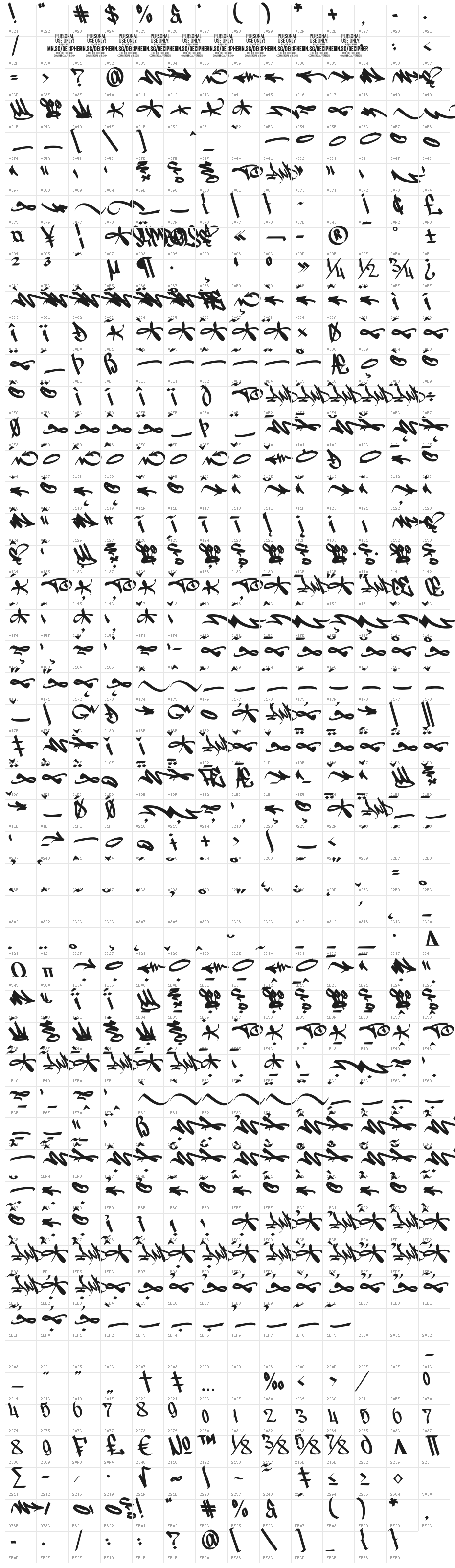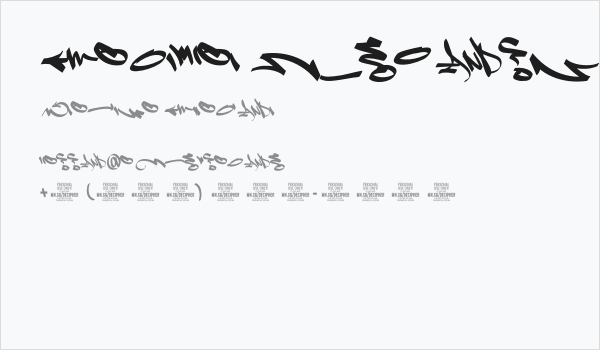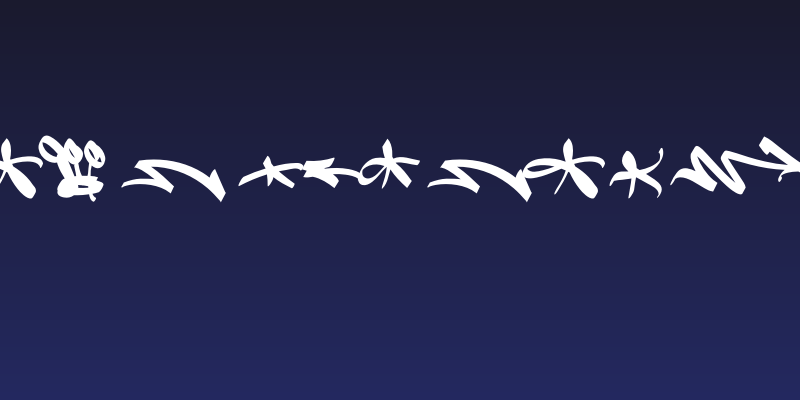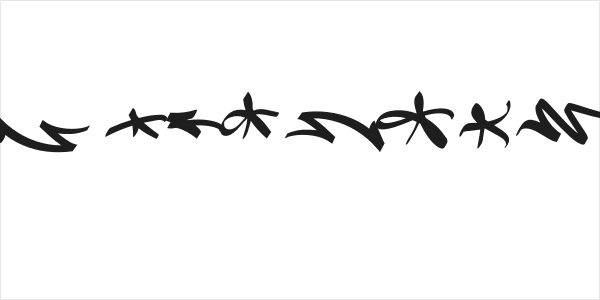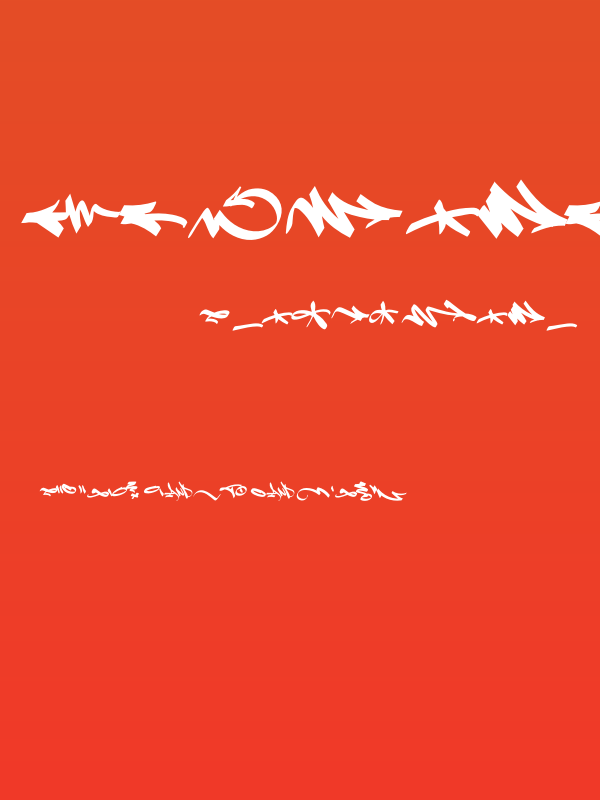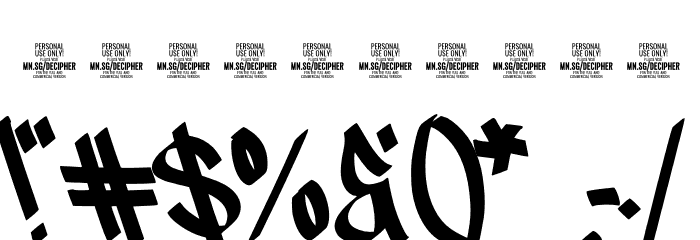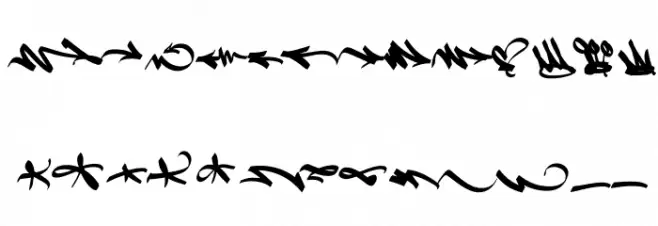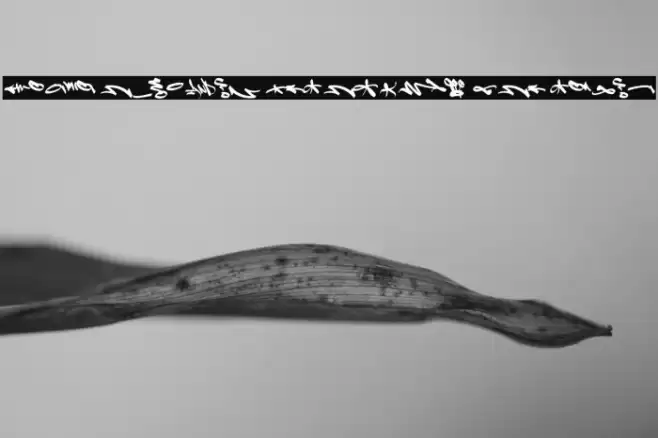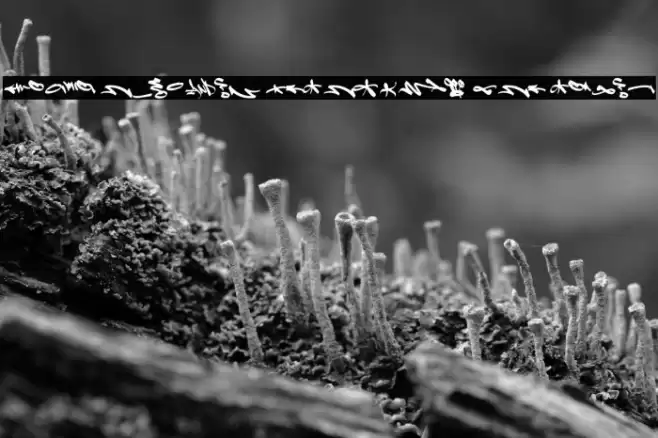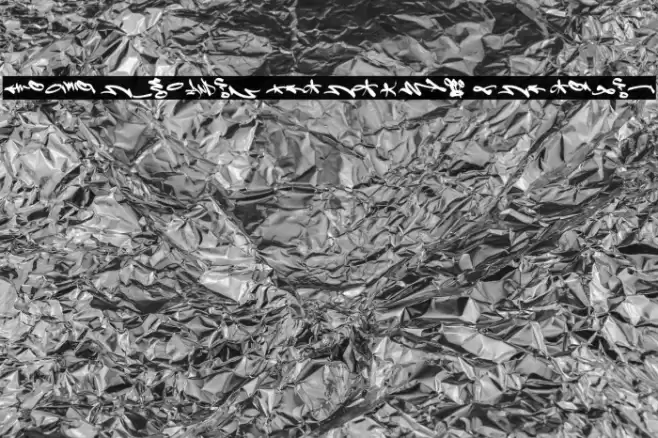
Decipher Symbols PERSONAL USE Regular Font
Decipher Symbols PERSONAL USE Regular Description
This font features an abstract and highly stylized design, characterized by intricate and complex shapes that resemble cryptic symbols or ancient scripts. The characters are interconnected with flowing lines and sharp angles, creating a sense of mystery and artistic flair. The overall appearance is bold and striking, with a unique aesthetic that stands out. It is not easily readable as a traditional alphabet, making it more suitable for decorative purposes rather than practical text applications.
| Overall Style | Decorative |
| Use Case | Logos, Decorative elements |
| Proposed Projects | Ideal for artistic projects, logo design, or decorative elements where a mysterious or ancient aesthetic is desired. |